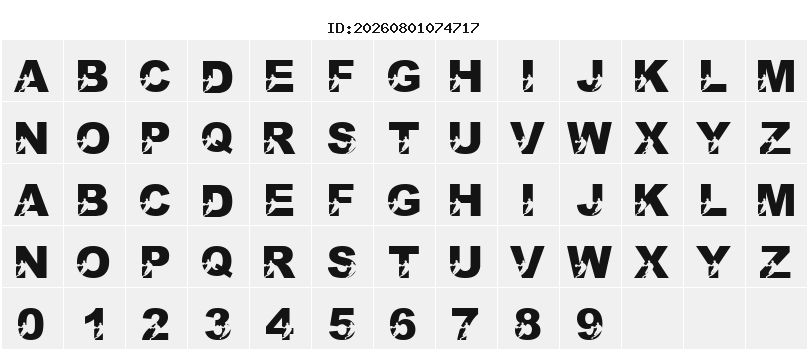
• Font Name: LMS I Love This Game
About LMS I Love This Game.ttf
LMS I Love This Game.ttf is a modern, elegant sans-serif font designed for ultimate readability and visual harmony. Perfect for branding, headlines, web design, and print materials.